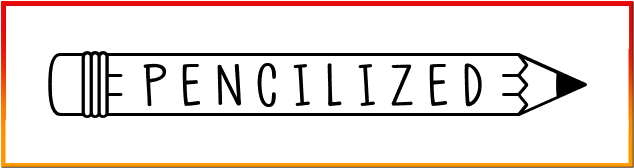
Pencilized Font
Pencilized
Pencilized is a fancy font designed by Brittney Murphy. It's a decorative display font with plenty of personality, made to grab attention. It's a free download, and you can try it with your own text in the preview above first.
What You Can Type With Pencilized
You get every letter from A to Z in both cases and all the numbers from 0 to 9, which means Pencilized can handle full sentences, dates and prices. Common punctuation such as &, !, ? and @ is included as well. It has 1 accented letters, but not the full set for Spanish or French, so test any non-English words first.
Where Pencilized Works Best
Think of Pencilized for posters, logos and eye-catching headlines. Use it for one standout word or headline and let simpler fonts handle the rest.